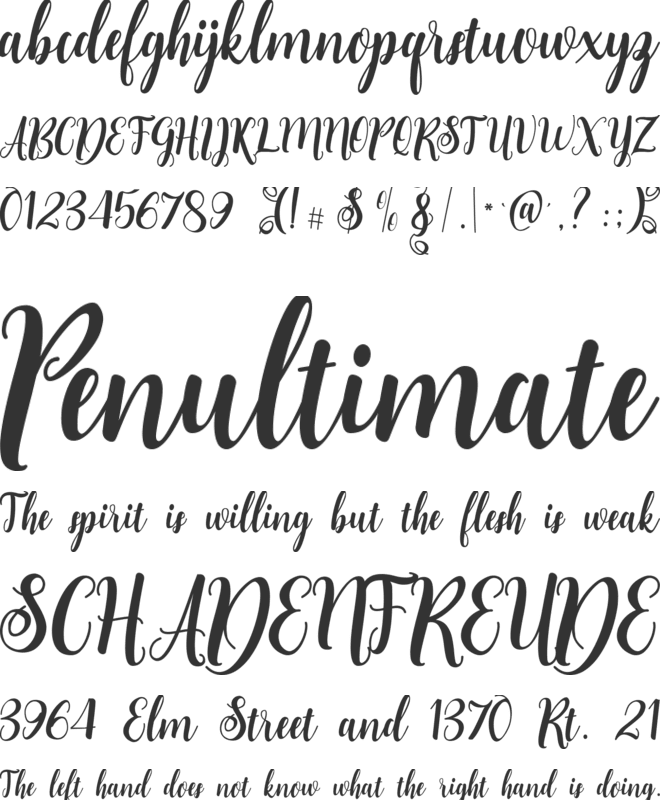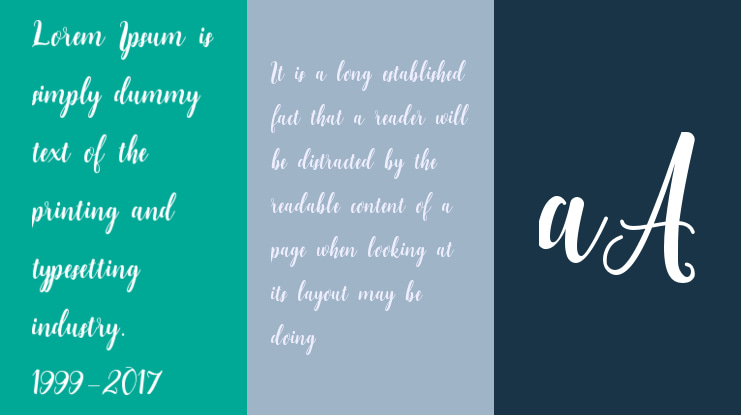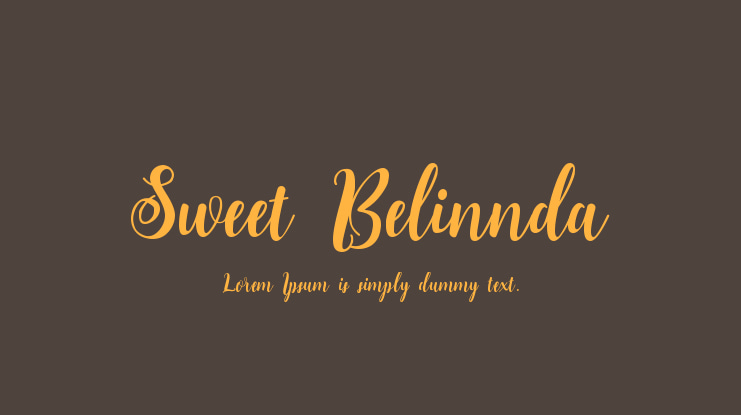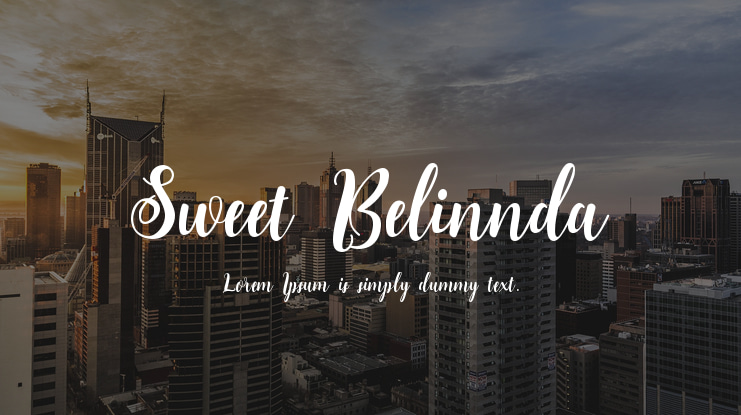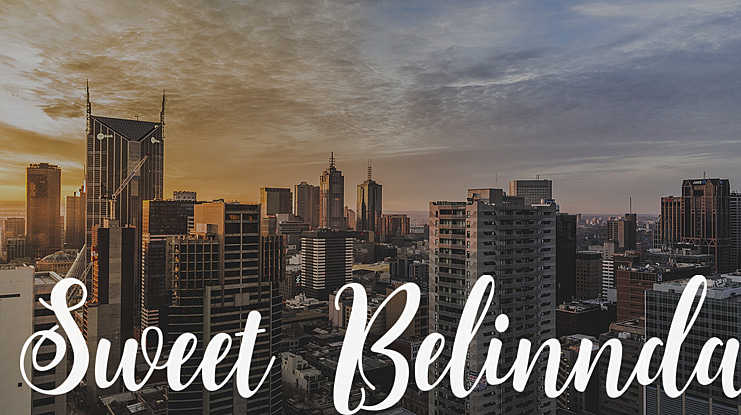
Sweet Belinnda Font Family
Staircase Studio
Sweet Belinnda Handwritten Typeface. A collection of letters and numbers suitable your projects also great for Logotype, Branding Design, Logo Design, Digital Lettering Arts, T-Shirt/Apparel, Poster, Magazine, Signs, Advertising Design, and any design needs.